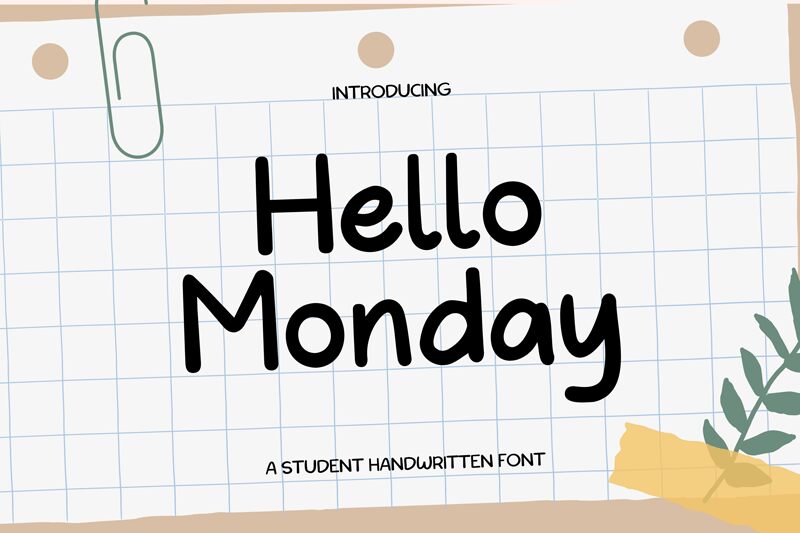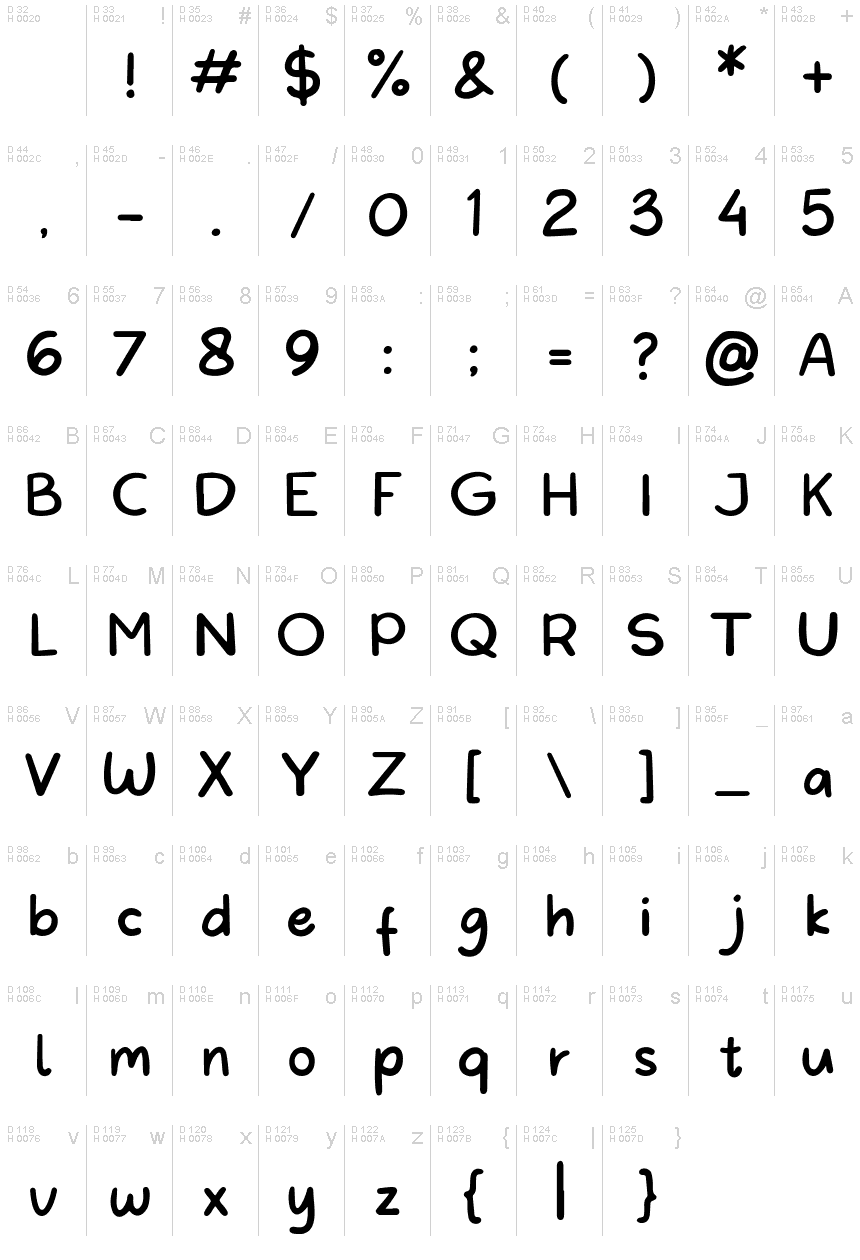
Hello Monday
Hello Monday, designed by Excellent Ritma Florendia, is a handwritten font that radiates a neat and tidy charm, ideal for anyone seeking a personal touch with a dash of cleanliness. This student-inspired typeface offers the perfect blend of casual flair and structured elegance, making it an excellent choice for note-taking that won't look out of place in more formal applications like headlines and titles.
The aesthetic appeal of Hello Monday lies in its ability to mimic the warmth and approachability of human handwriting while maintaining an orderly appearance. Its clean lines and uniform letterforms suggest meticulous craftsmanship, inviting readers into whatever message or content it presents.
Versatile in its application, Hello Monday stands out on merchandise with its friendly vibe or commands attention on posters without overwhelming the senses. Creative projects ranging from educational materials to branding campaigns can leverage this font's unique balance between personal expression and polished presentation. Whether you're penning your next set of class notes or designing a logo that requires a touch of humanity, Hello Monday is well-suited to bring your project to life with style.